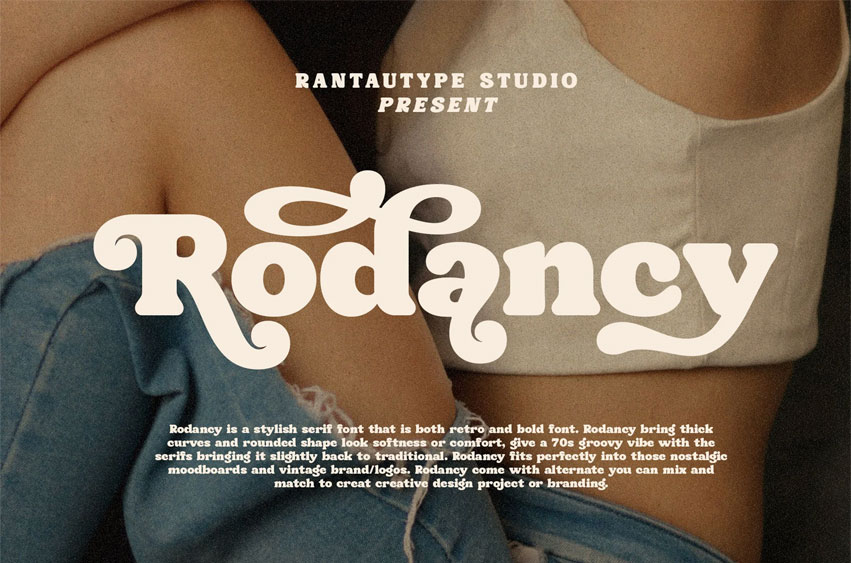
Rodancy Font
Rodancy Font is a stylish serif font that is both retro and bold. Rodancy brings thick curves and a rounded shape, looking soft and comfortable, giving a 70s groovy vibe with the serifs bringing it slightly back to traditional. Rodancy fits perfectly into those nostalgic moodboards and vintage brand/logos. Rodancy comes with alternatives you can mix and match to create a creative design project or branding.
Rodancy is a perfect choice for any creative endeavor, creating elegant, modern, chic, lifestyle design such as logotype, title, cover, branding, invitations, wedding designs, display and magazine, social media posts, advertisements, printed quotes, product packaging, corporate brand, product designs, labels, photography, watermarks, special events and any other project with retro or vintage touch.